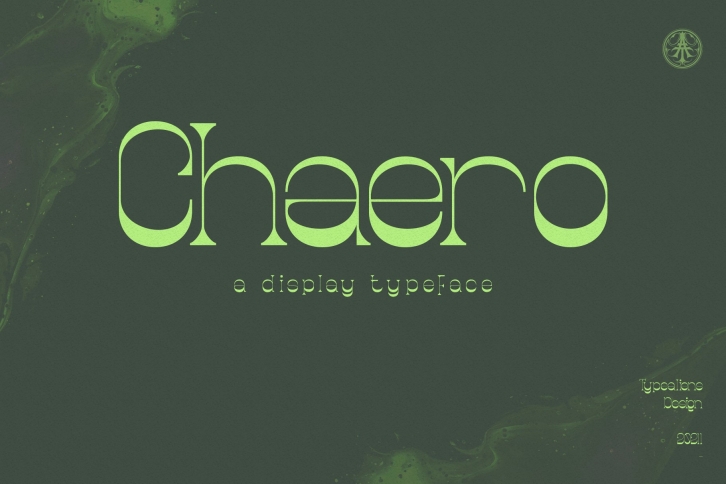
Chaero is a trendy and unique font with an authentic style. It was designed by llhamtaro and it's a great choice for creative people who need such a font. It was released on January 17, 2022 and the file size is 1.90 MB. Chaero will add an organic vibe to any design idea!